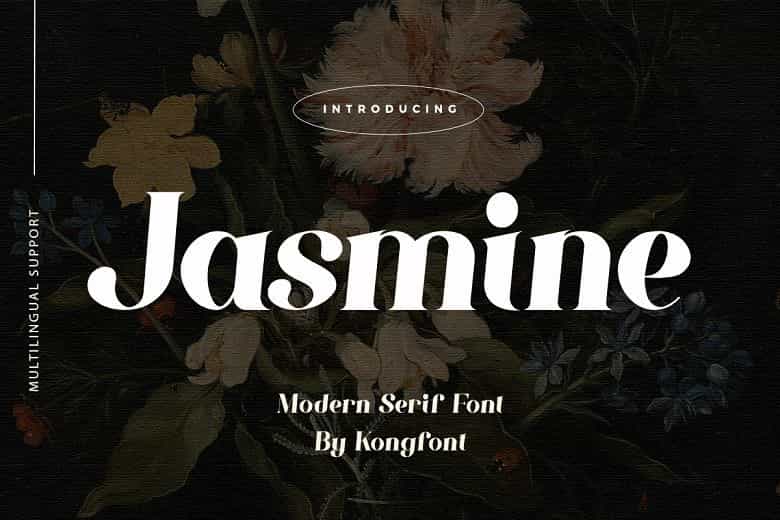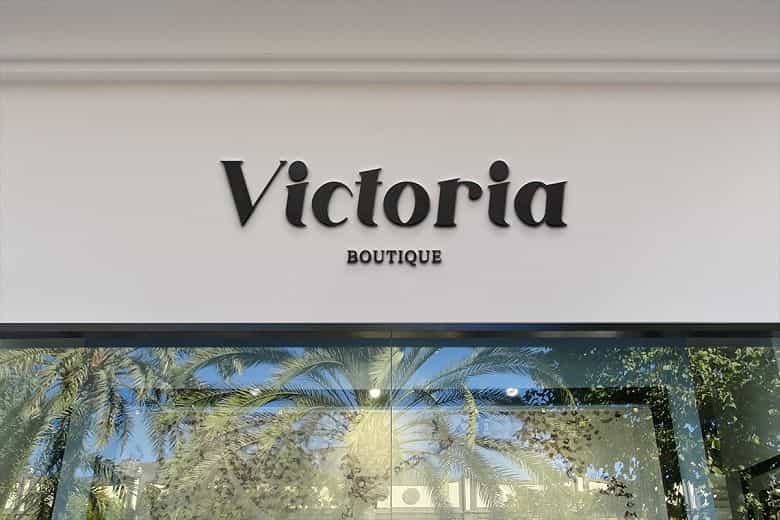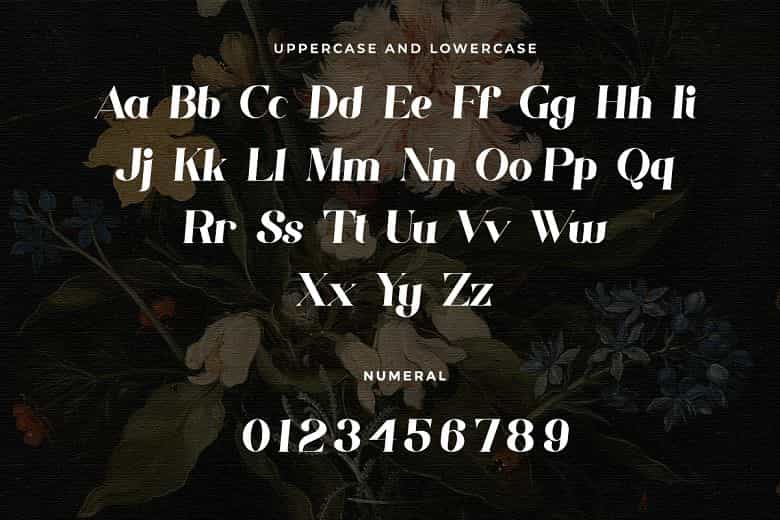
Jasmine is a sophisticated, yet fashionable serif font that can be characterized by both traditional and innovation. This aligns with the general characteristics of the letters where the letters are very neat and sparse with little decor in each letter. Jasmine is an erect woman who gives a sensation of a very assured lady. Those who read different texts written in this font do not have to worry of having to read and make sense of it, in other words this is a readable font.